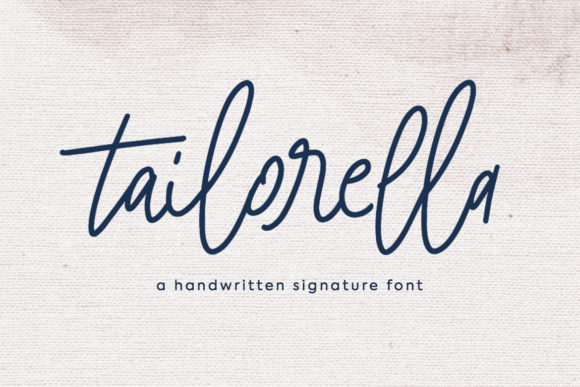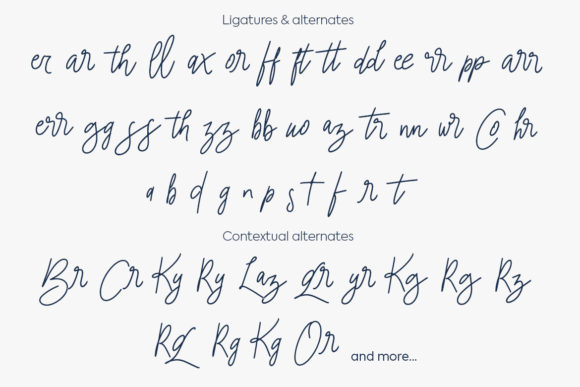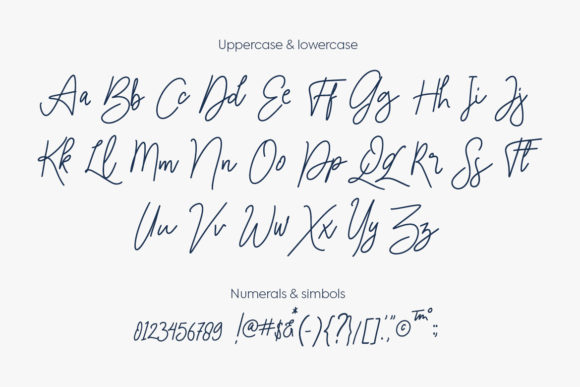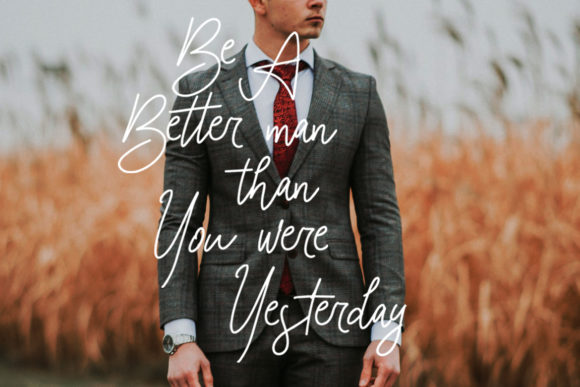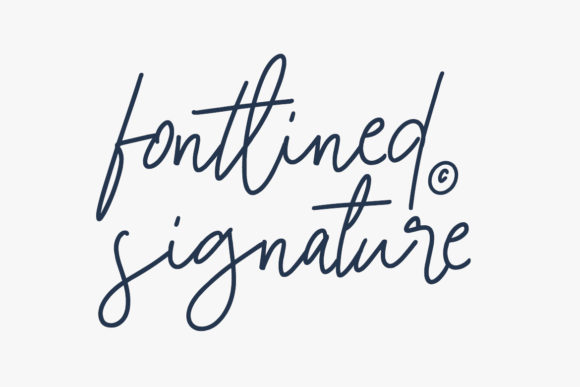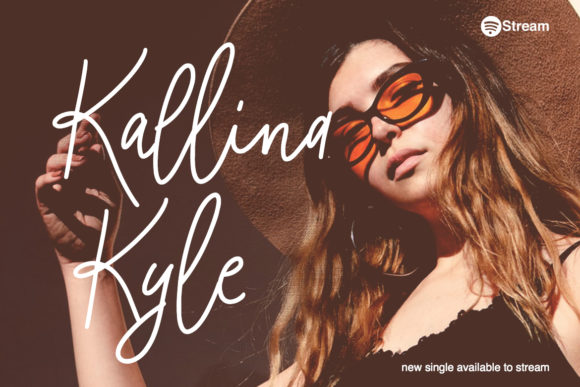
HomeScript FontsTailorella Font Script Fonts Tailorella Font FacebookXPinterestWhatsApp Tailorella Font Poster 2 Tailorella Font Poster 3 Tailorella Font Poster 4 Tailorella Font Poster 5 Tailorella Font Poster 6 About Tailorella Font Tailorella is a modern handwritten script font. It features a cool, classy, and fancy signature style! DOWNLOAD ON CREATIVE FABRICAThis font is sold and delivered by Creative Fabrica. Font Canyon may earn a commission if you buy through this link. People also explored Place of Business Font Mondier Font Hudzaifah Font Realistic Mock-ups on Vintage Background Grumble Font Mr Canfields Floro Dos Font Back to School Font Rockybrown Font 500 0 TagsTailorella Font Previous articleMargareta FontNext articleBinetta Signature Font LEAVE A REPLY Cancel reply Comment: Please enter your comment! Name:* Please enter your name here Email:* You have entered an incorrect email address! Please enter your email address here Website: Save my name, email, and website in this browser for the next time I comment. Personal Use Free Braindly Personal Use Free Read more about this font Gdynia Personal Use Free Read more about this font Lovetle Personal Use Free Read more about this font Bettari Personal Use Free Read more about this font BLOG Best Fonts for YouTube Videos: Make Your Thumbnails Stand Out Best Fonts for YouTube Videos: Make Your Thumbnails Stand Out Choosing the right font can make a massive difference in how your YouTube videos perform.... Where to Buy American Fonts Online in 2024 Free Fonts Risk: Why Free Fonts Can Be Dangerous for Designers To increase your work productivity, choose the most readable fonts.